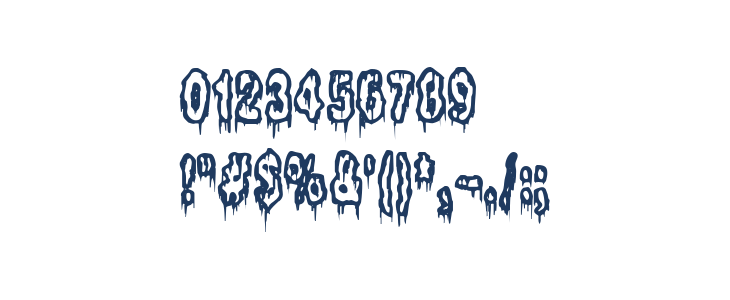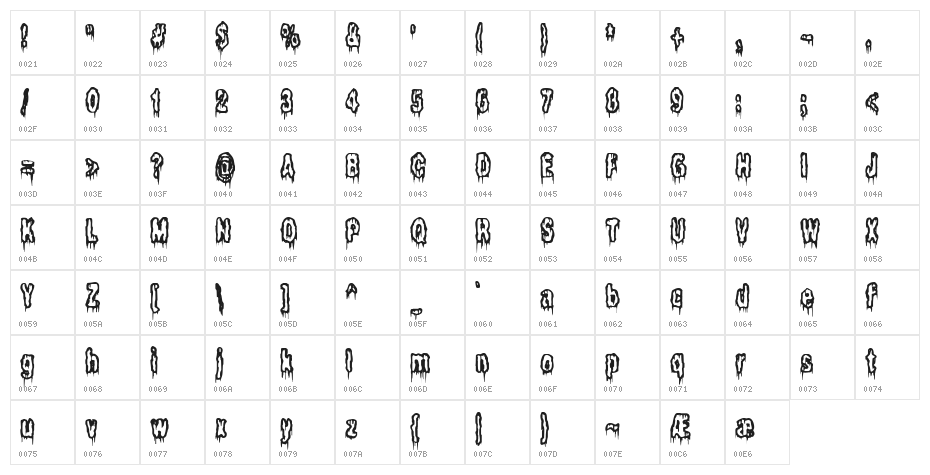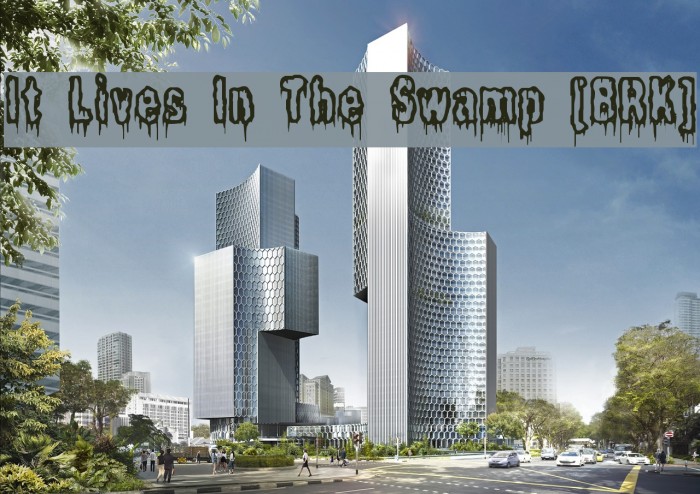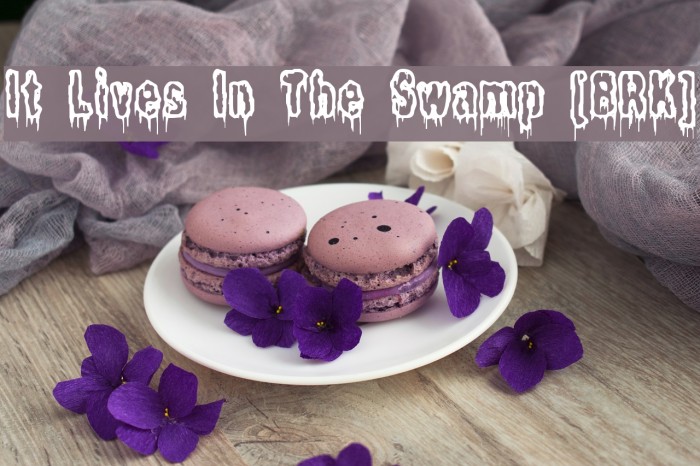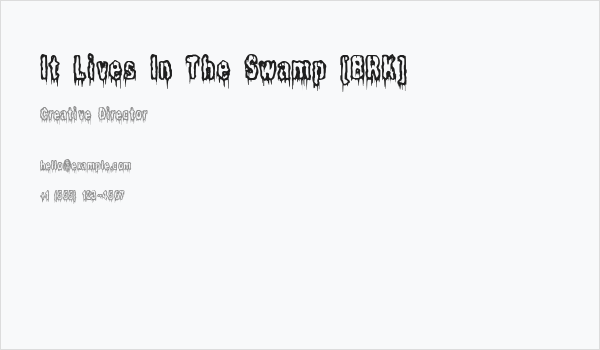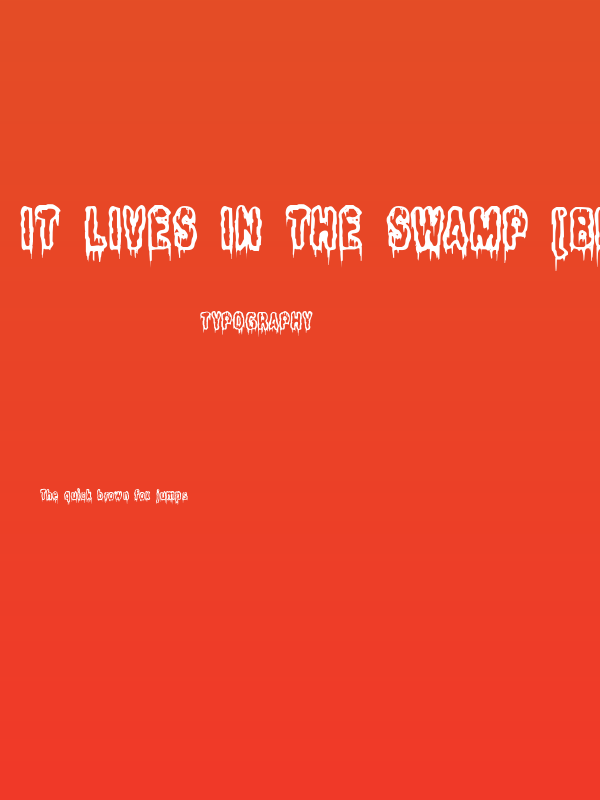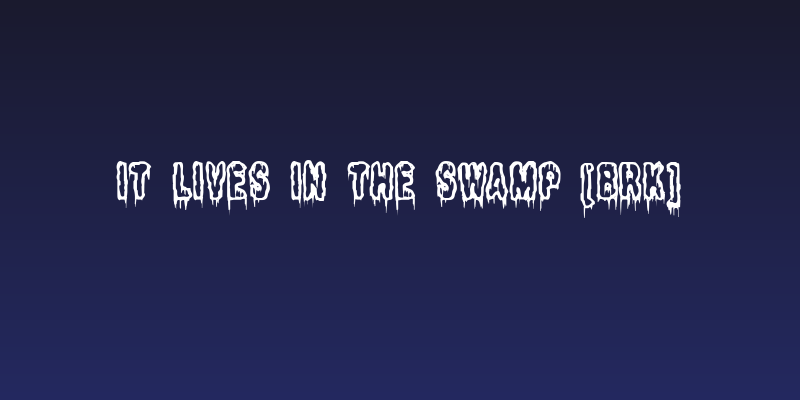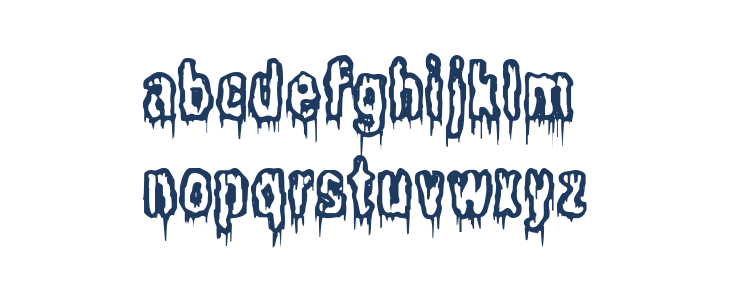
It Lives In The Swamp [BRK] Font
It Lives In The Swamp [BRK] Description
This font exudes a spooky, dripping effect reminiscent of a swamp or horror theme. Each character appears as if it's melting or oozing, with uneven edges and a bold, thick appearance. The uppercase and lowercase letters maintain a consistent style, with the numbers and special characters following suit. This font is highly decorative and captures a sense of eerie, unsettling ambiance, making it ideal for Halloween-themed projects or anything requiring a touch of the macabre.
| Proposed Projects | Ideal for Halloween invitations, horror movie posters, haunted house flyers, and themed party decorations. |